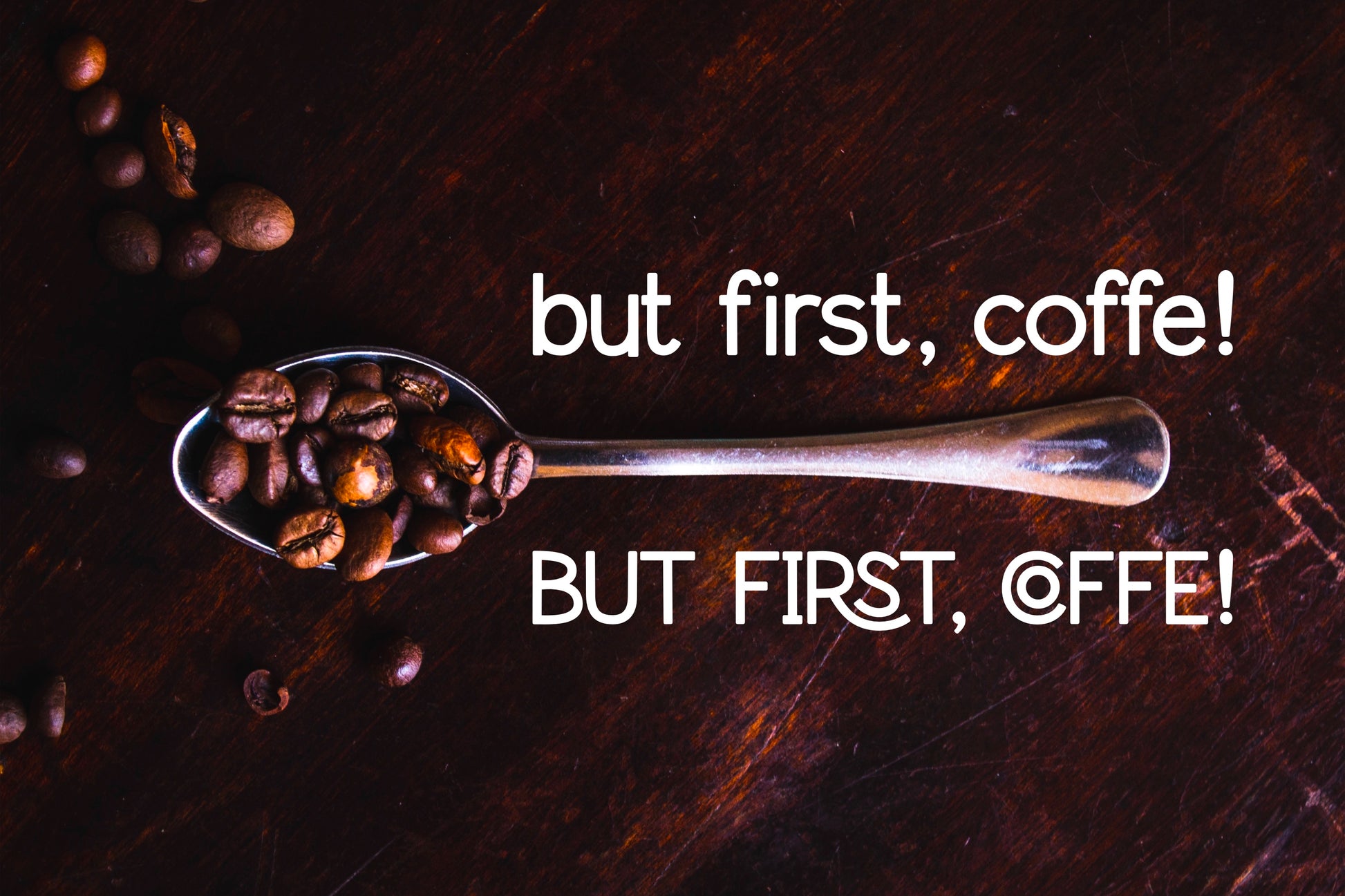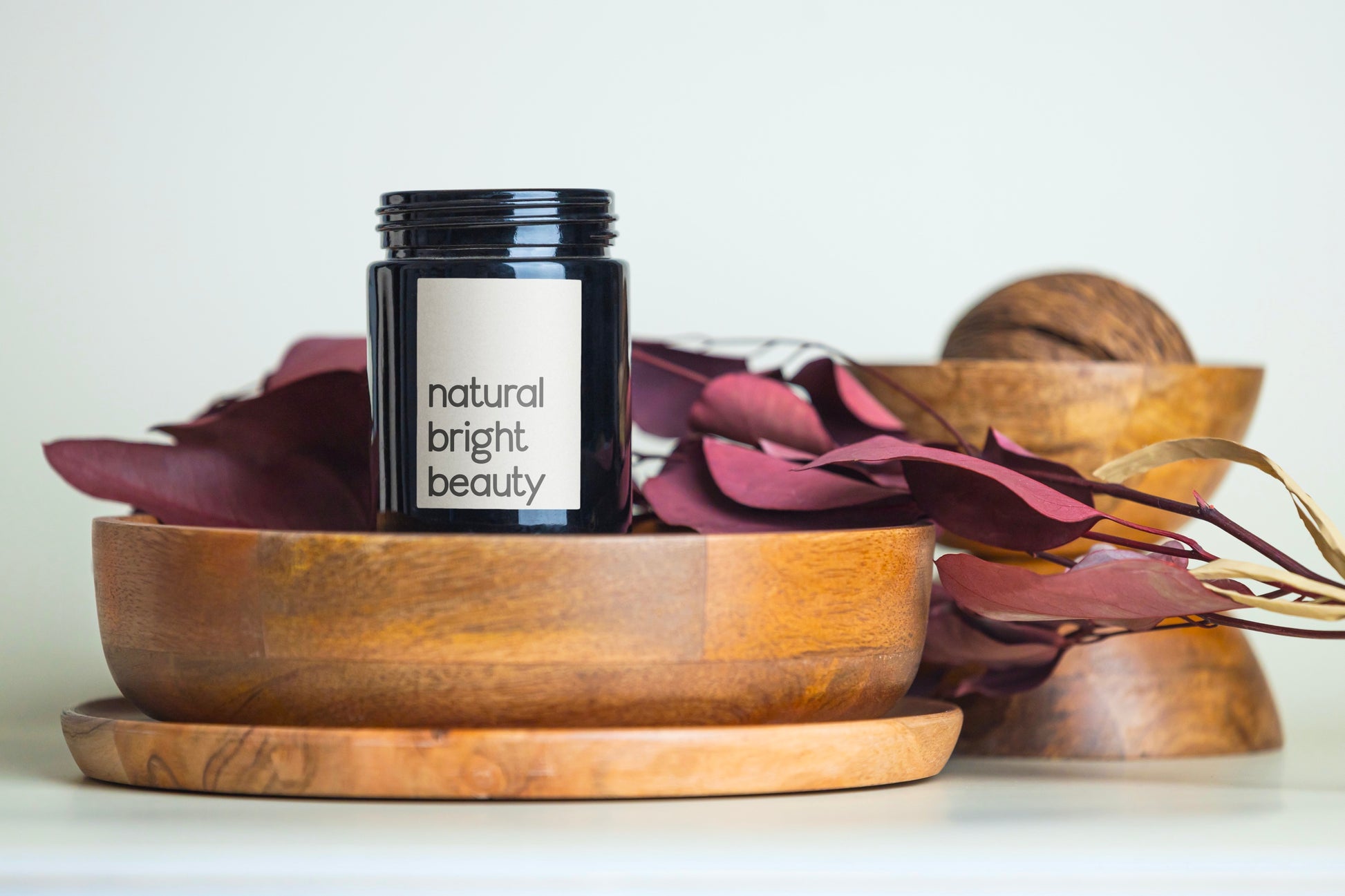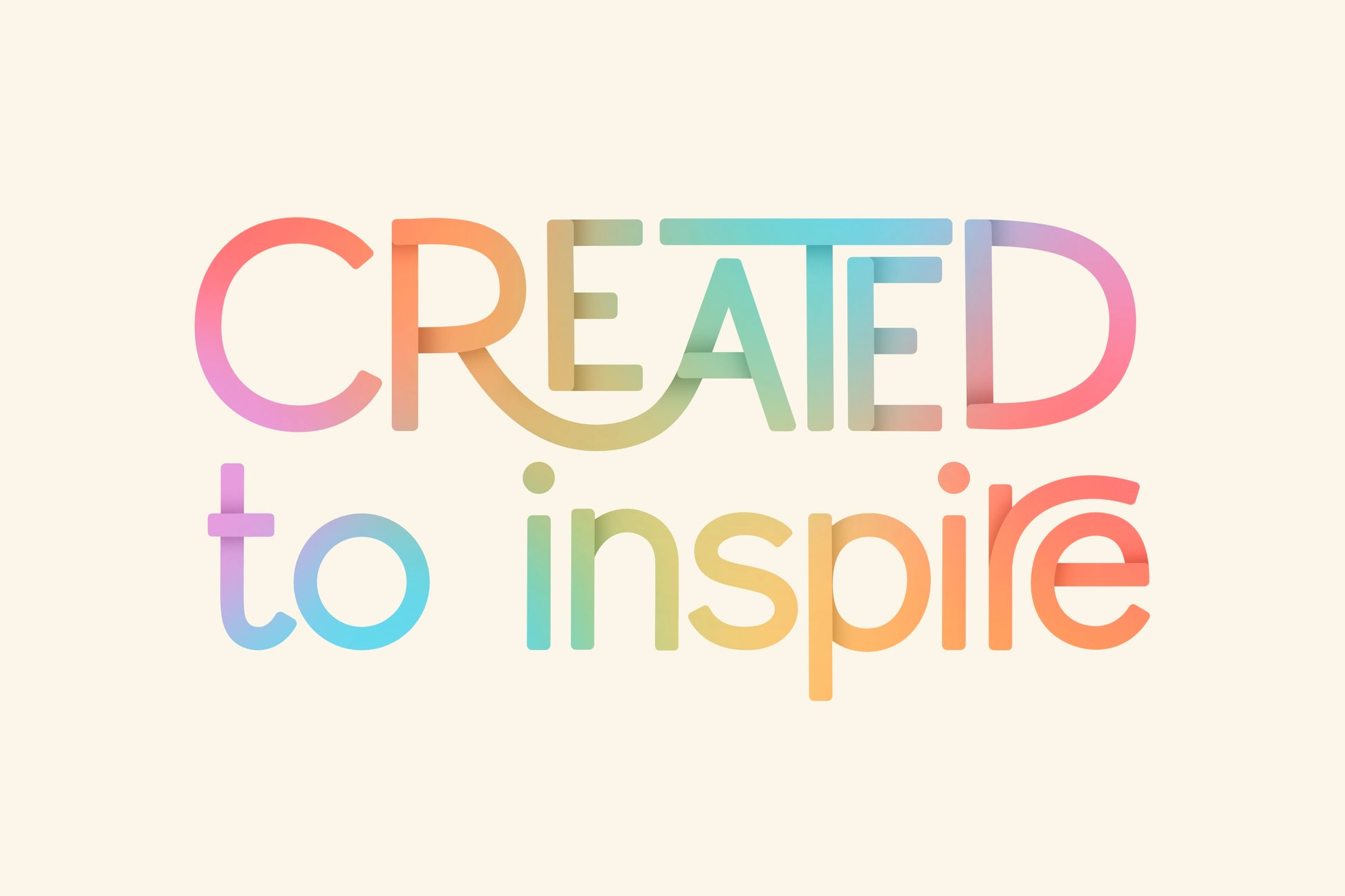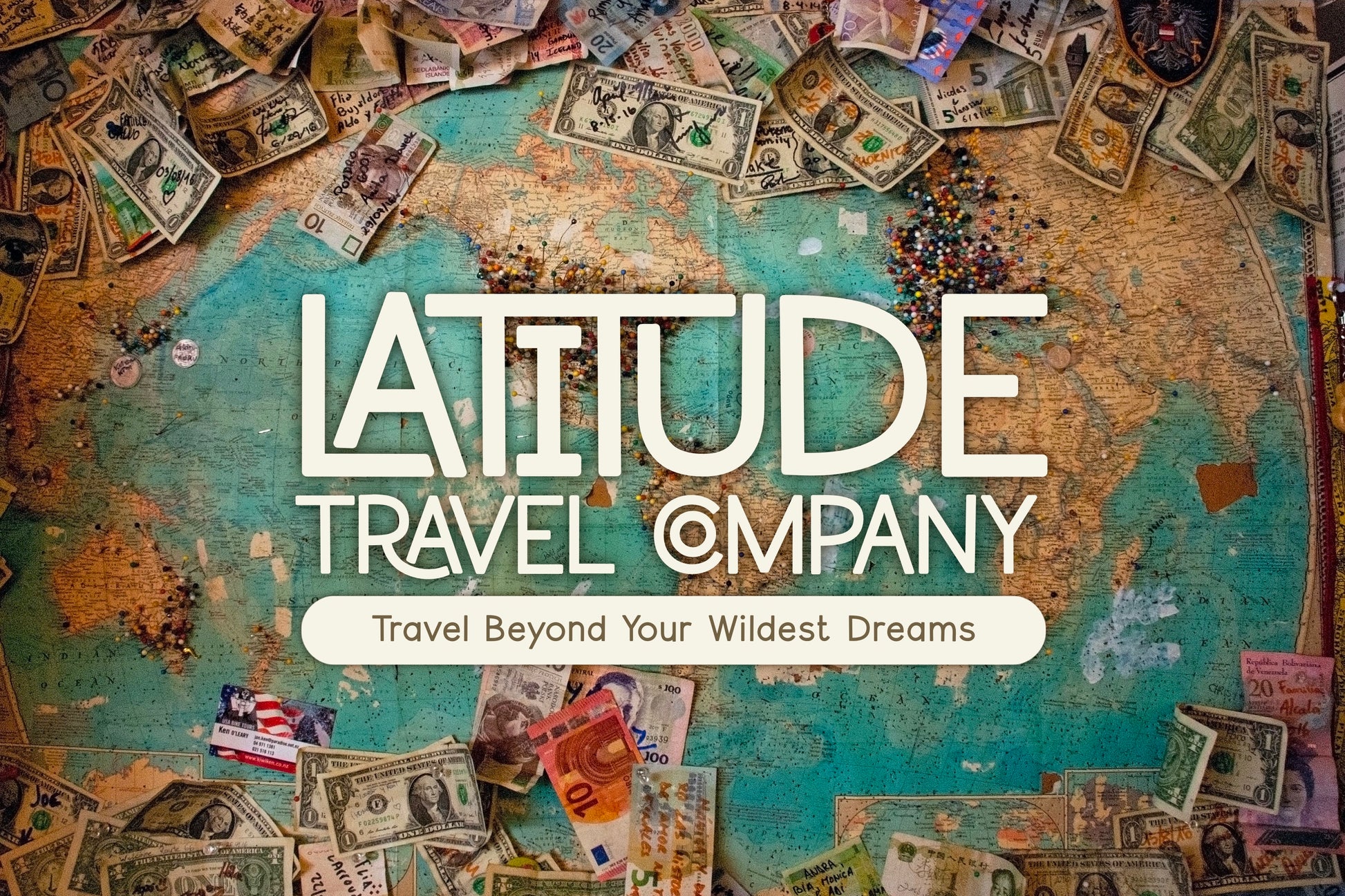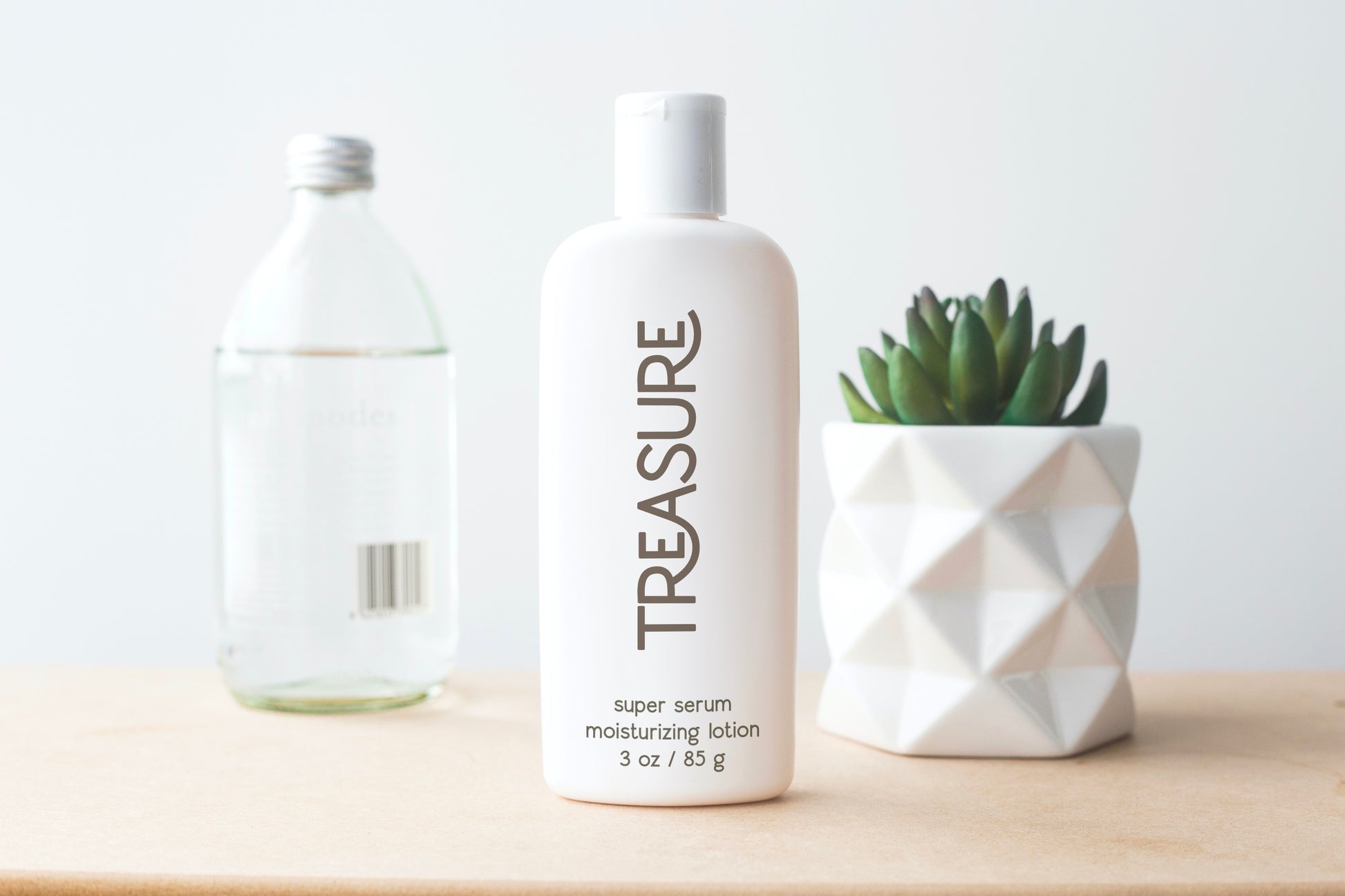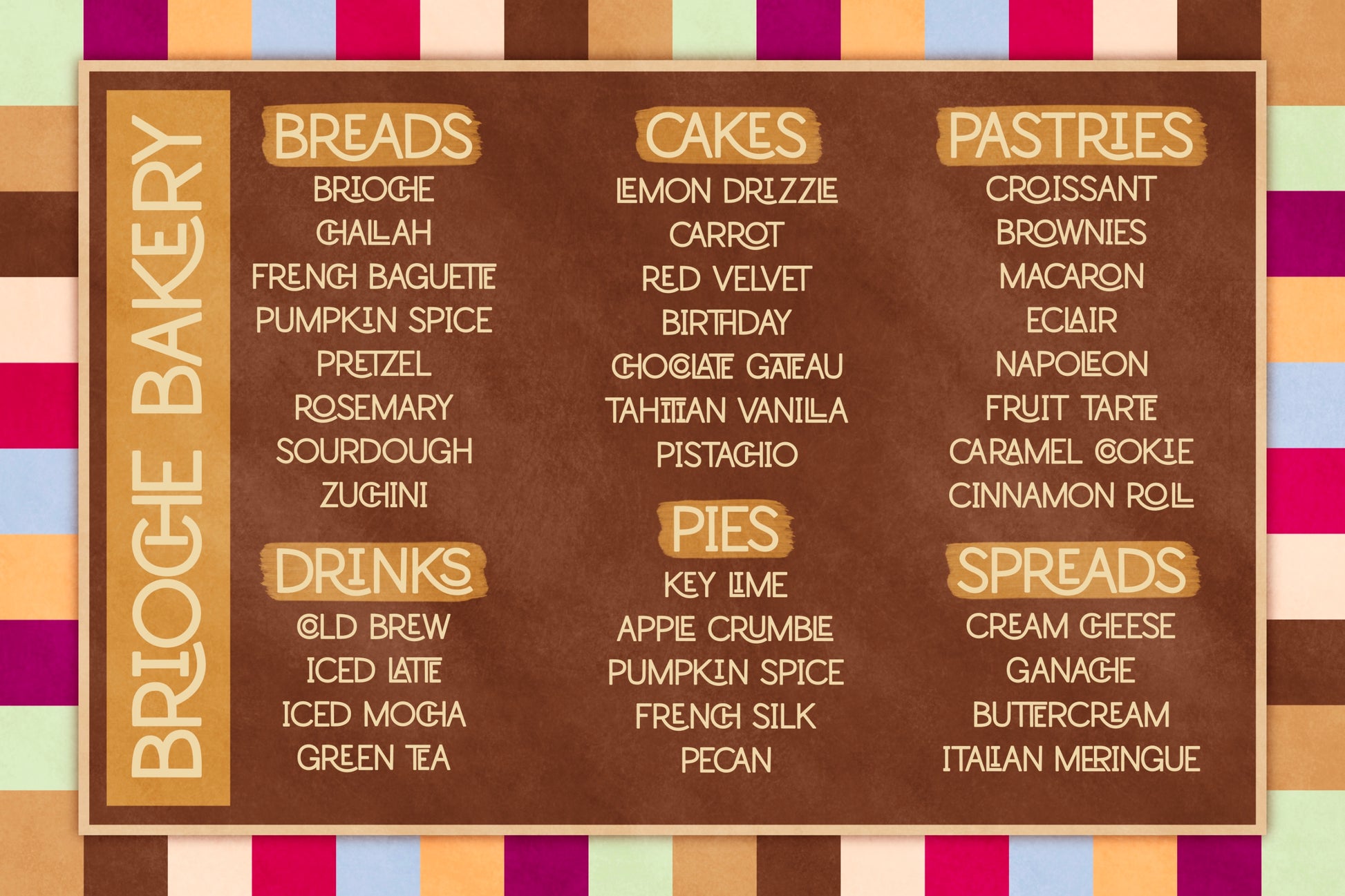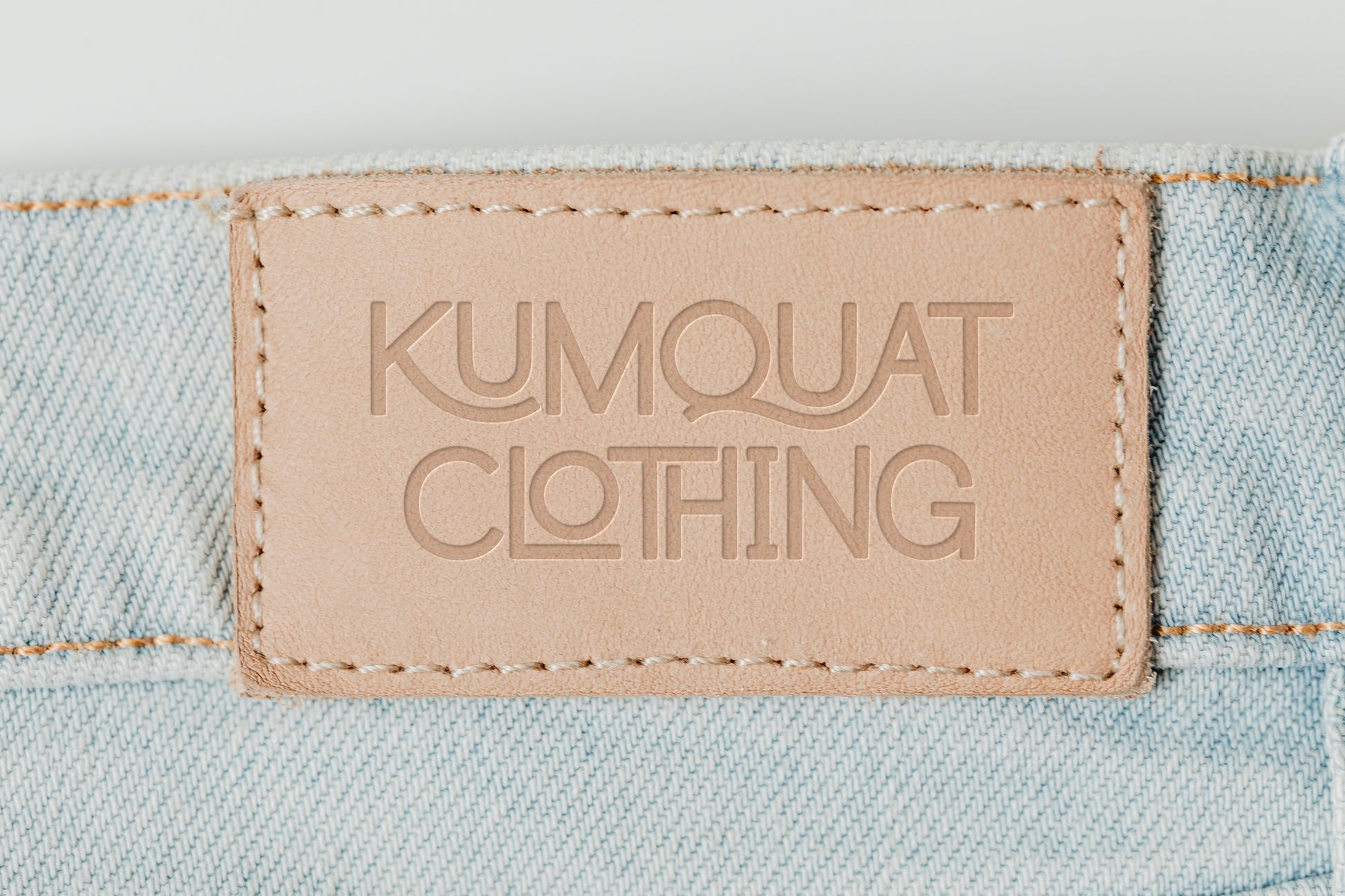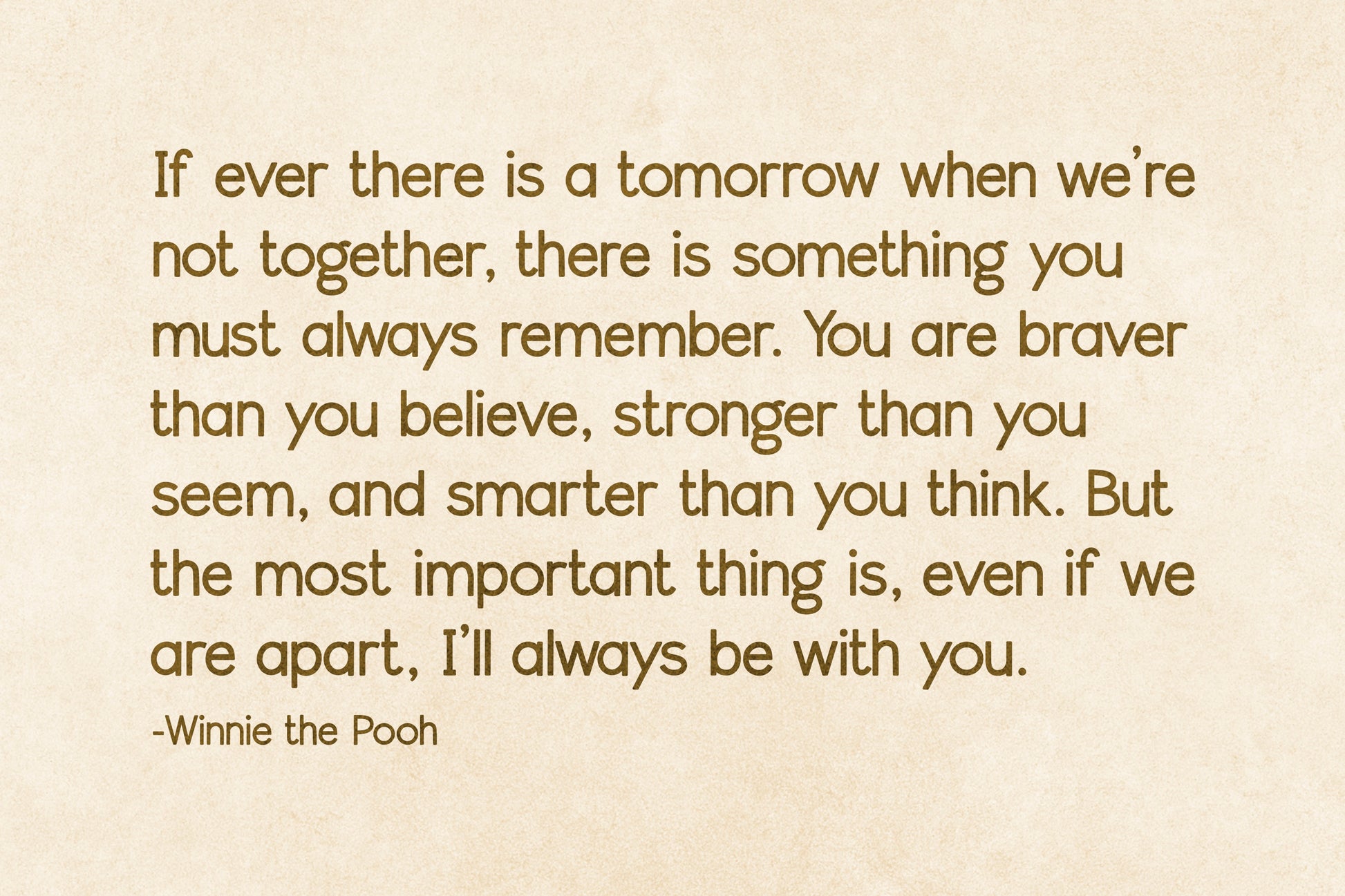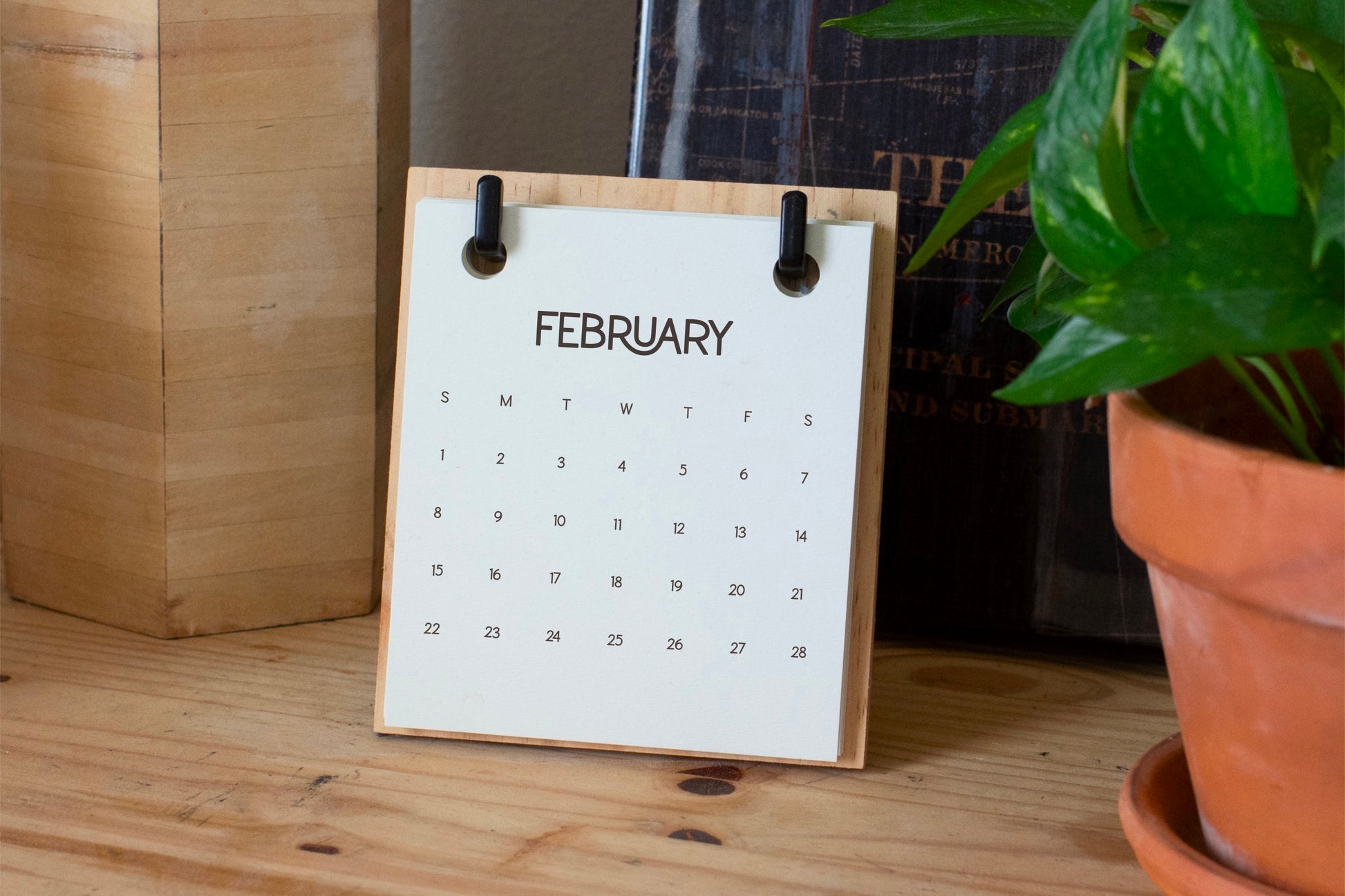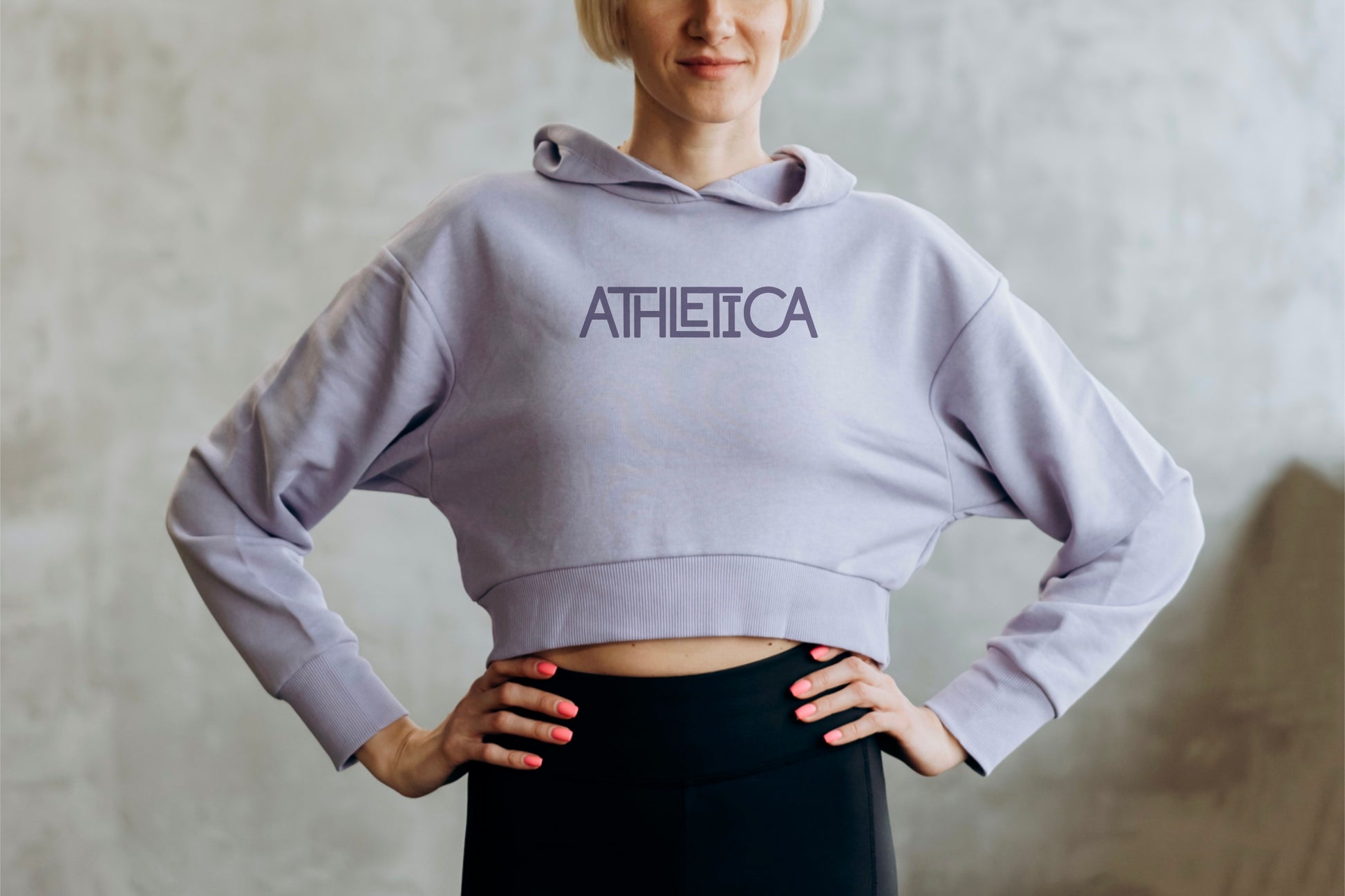
Roasted Chocolate Hand Drawn Font
This is my Roasted Chocolate handwritten/hand drawn font. This fun display font with over 50 ligatures will add a cute, playful, handmade touch to your design! Its versatility makes this font great for casual, informal designs, but also formal and elegant occasions too! It would be great for stickers, posters, t-shirts, invitations, quote designs, and any other unique design that you can think of!